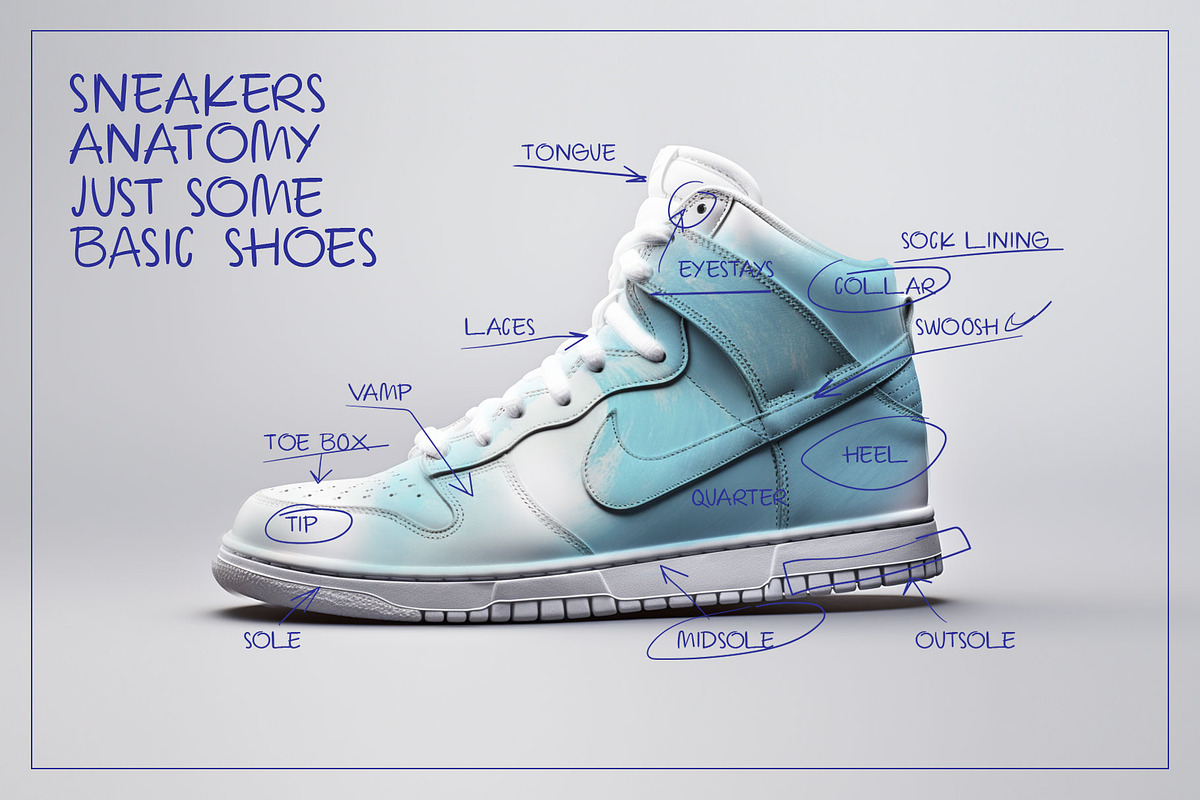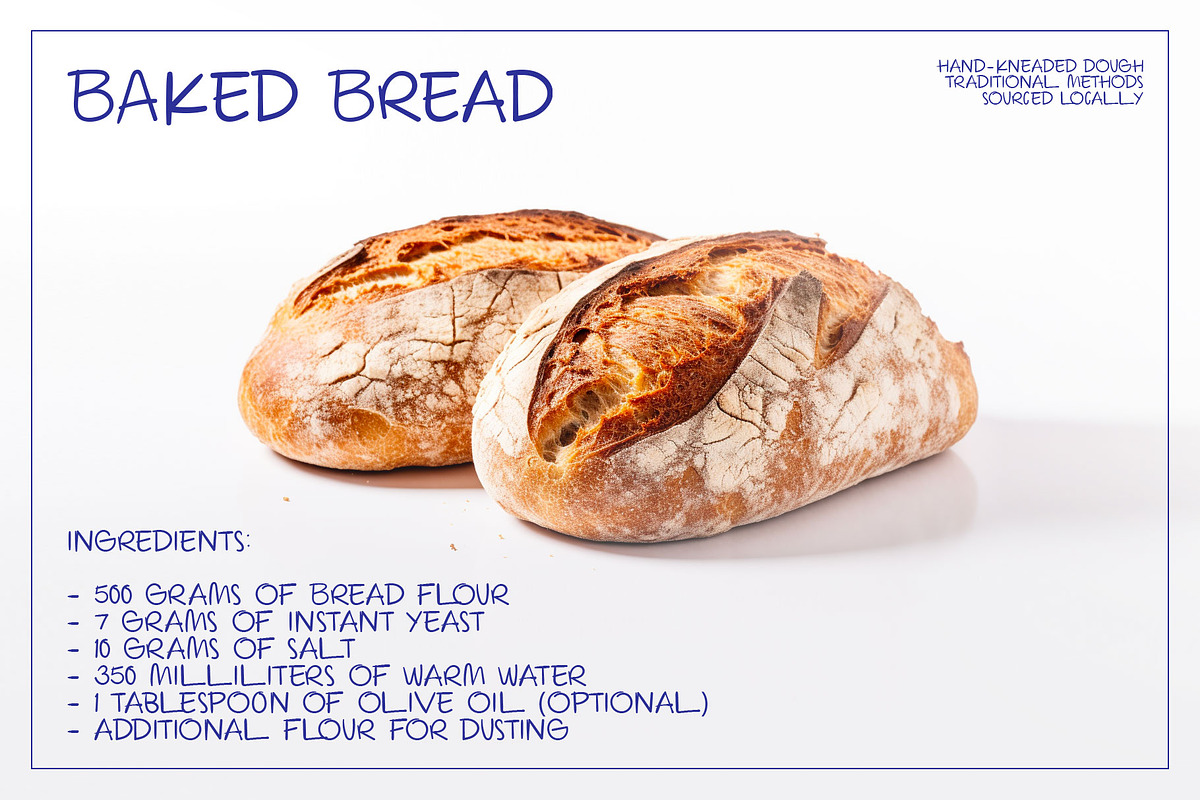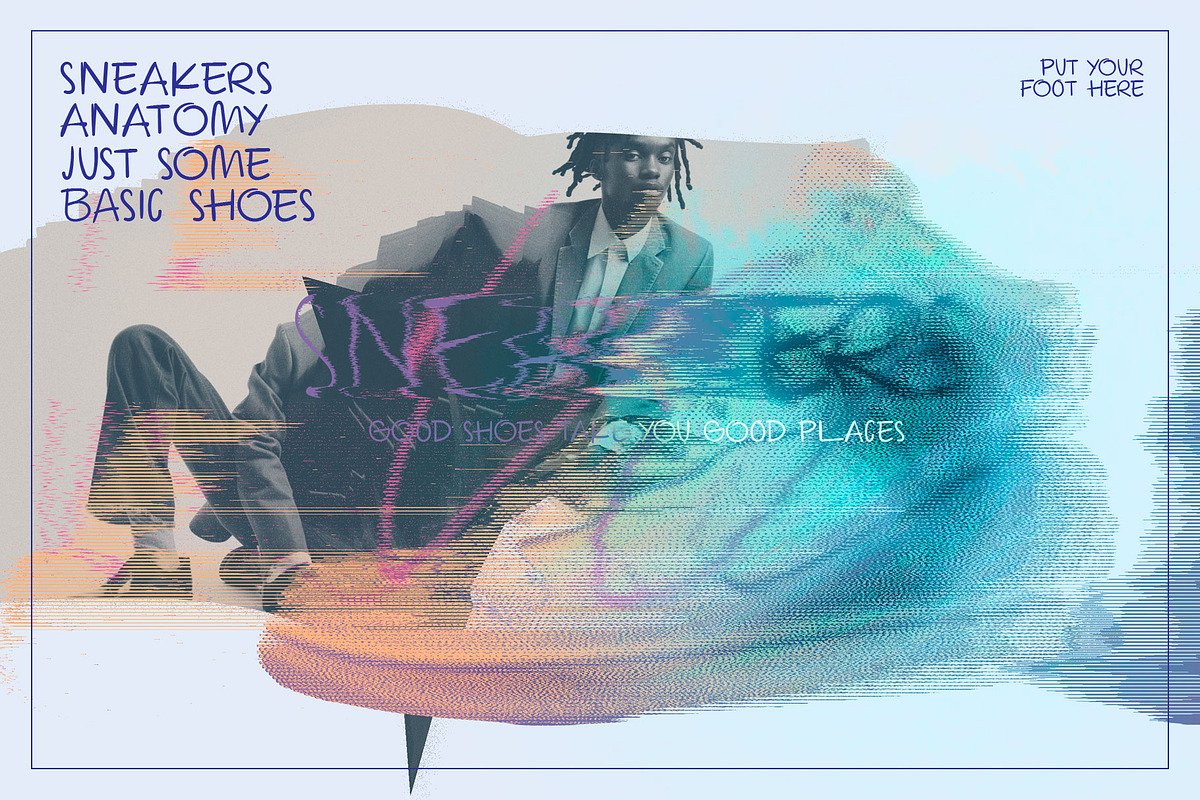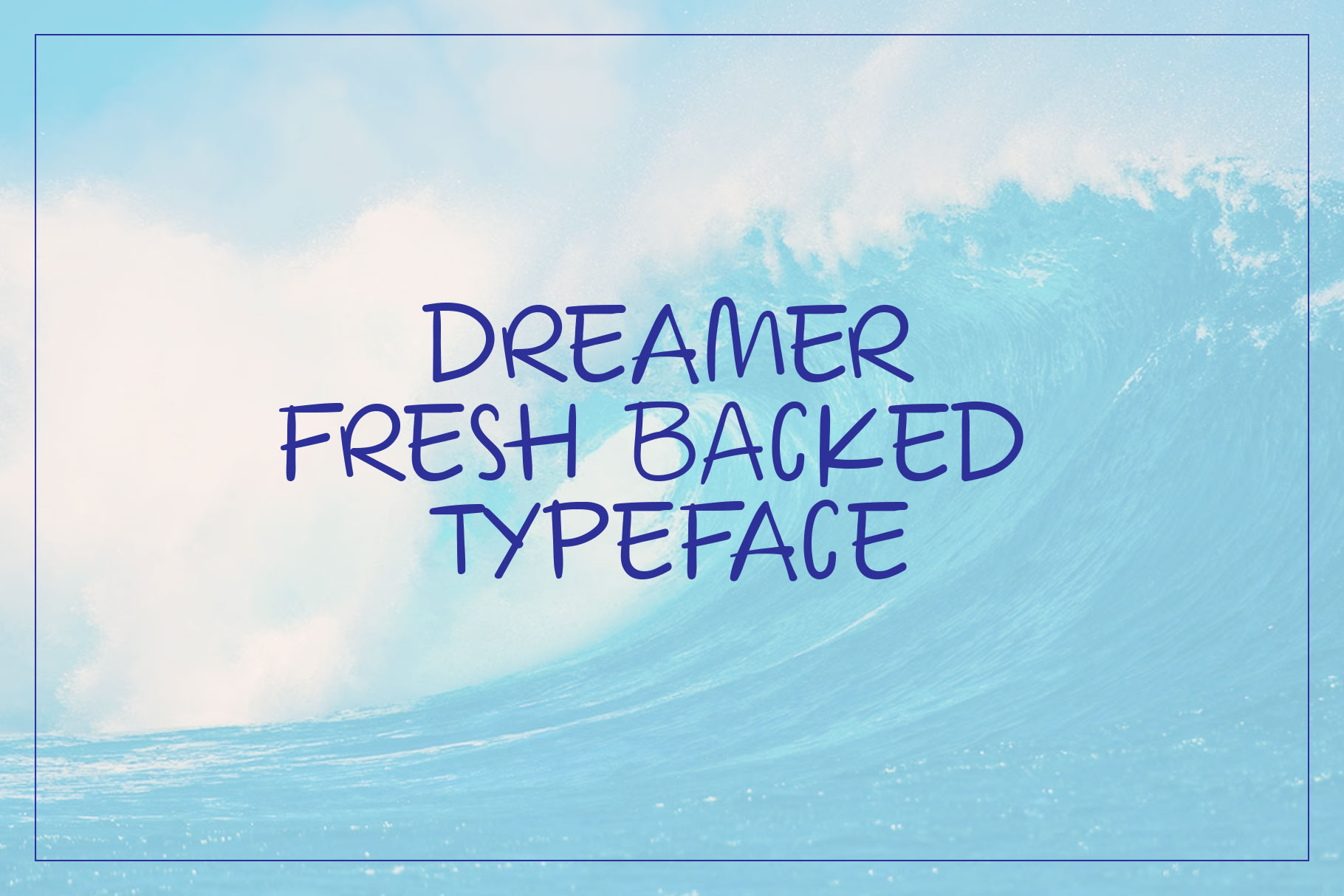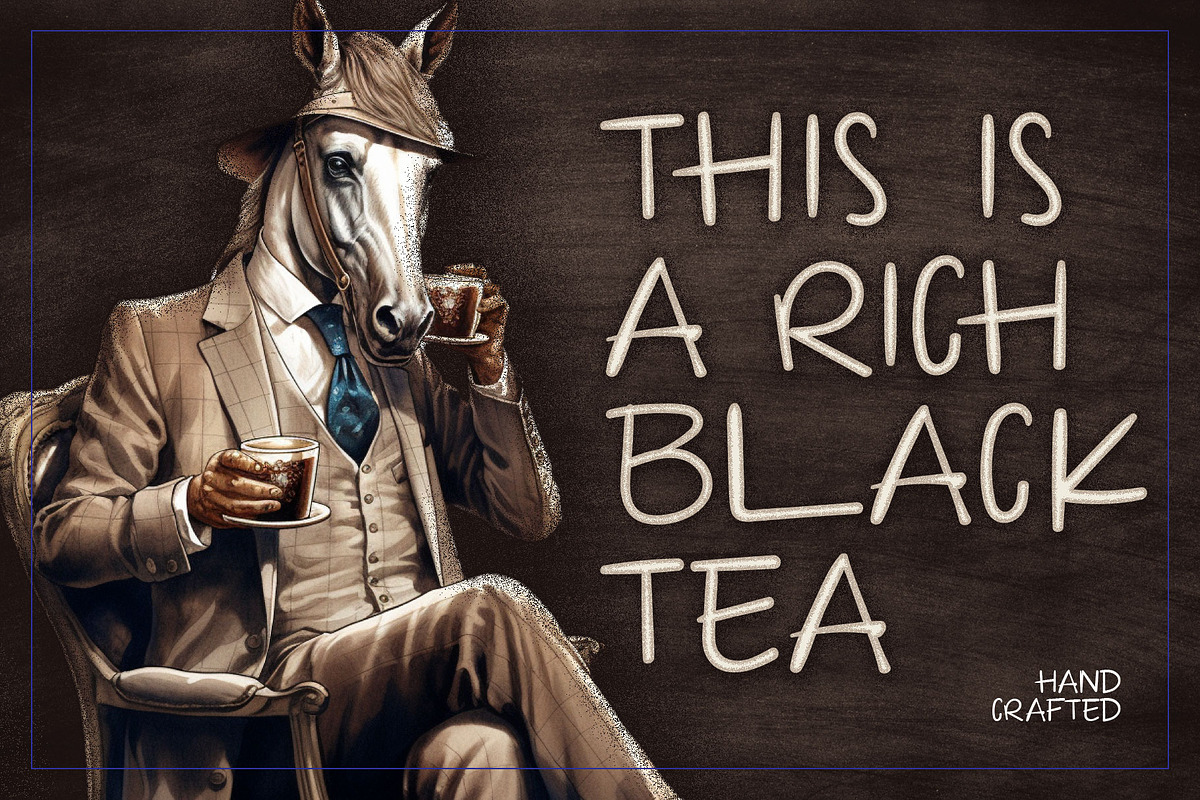
Dreamer handwriting font
The cool handwritten font is perfect for captions, notes and marks. If you need alternatives or additional glyphs, just let me know 100% Uppercase font Latin and Cyrillic